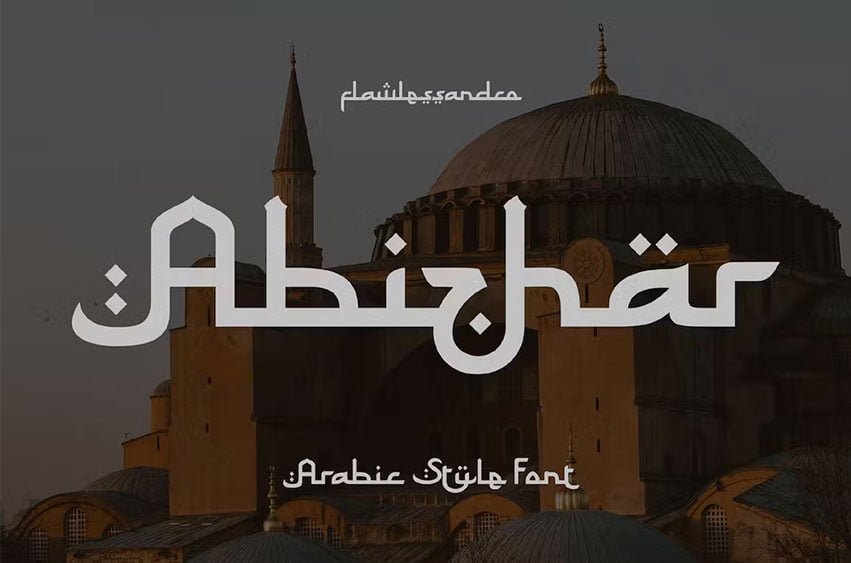
Abizhar Font Ramadhan Arabic Font, calligraphy font, Religi Font, Moslem Font, canvas font, procreate font, Cricut font, introducing our new Arabic Font, Modern Font with Elegant Style is perfect for branding, logos, invitation, master heads, and more.
Abizhar Font Preview